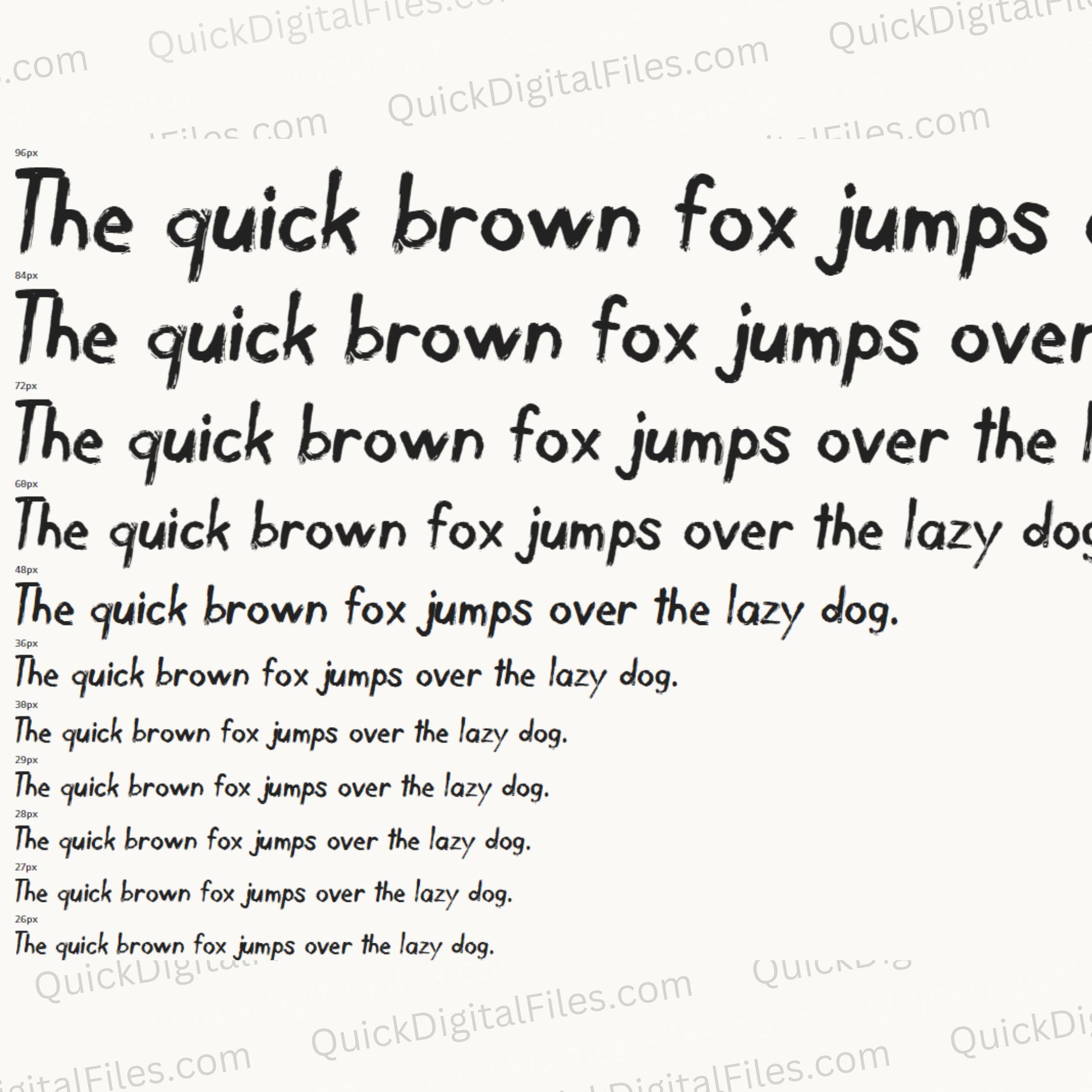
Dirty Finger: Font
Introducing the Dirty Finger Font, a free typeface that embodies a playful, country-style look. Imagine someone dipping their finger into mud and sketching out letters—this font brings that rustic, handmade feel to your designs. Perfect for kids' themed projects, farm or country-style decor, and any creative work that needs a touch of whimsy and authenticity. To find more typefaces that capture different moods and styles for your projects, explore our Fonts collection for diverse designs.
- Country-Style Design: A font that looks like it was drawn with a muddy finger, offering a rustic, handmade aesthetic.
- Versatile Use: Ideal for children’s book designs, rustic-themed invitations, farm decor, and more.
- Parents and Teachers: Create fun and engaging labels, worksheets, and classroom decorations.
- Graphic Designers: Use this font for unique and playful designs in children’s books, posters, and more.
- Event Planners: Design charming invitations and decorations for rustic or farm-themed events.
- Craft Enthusiasts: Add a touch of handmade charm to your DIY projects, scrapbooking, and more.
- Font Style: Country-style, handmade look